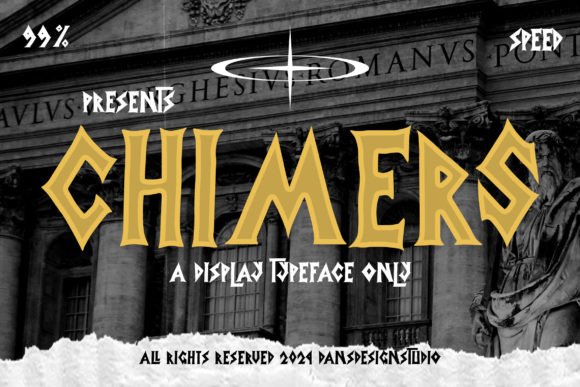
Introducing Chimers Font: The Perfect Blend of Old-School Blackletter and Modern Graffiti
In the world of typography, fonts play a crucial role in conveying messages, expressing emotions, and creating visual identities. With the ever-evolving design landscape, font styles continue to emerge, and one such font that has gained significant attention is Chimers Font. This cool, eye-catching display font seamlessly blends old-school blackletter style with modern graffiti vibes, making it a standout in the world of typography.
What is Chimers Font?
Chimers Font is a unique, Y2K-inspired display font that combines the elegance of traditional blackletter style with the edginess of modern graffiti. Its distinctive design makes it perfect for creating bold, stylish statements in various design projects, from posters and flyers to social media graphics and branding materials.
Key Design Features of Chimers Font
So, what makes Chimers Font so special? Here are some of its key design features:
- Old-school blackletter style: Chimers Font draws inspiration from traditional blackletter typography, characterized by dramatic flourishes, intricate details, and a sense of luxury.
- Modern graffiti vibes: The font also incorporates modern graffiti elements, such as bold lines, vibrant colors, and a dash of edginess.
- Y2K-inspired design: The font’s design is reminiscent of the Y2K era, with a nostalgic feel that’s perfect for designers looking to create retro-style graphics.
- Unique letterforms: Each letterform in Chimers Font is carefully crafted to create a distinctive, eye-catching look that’s sure to grab attention.
Uses and Applications of Chimers Font
Chimers Font is a versatile display font that can be used in a wide range of design projects, including:
- Posters and flyers: Create bold, attention-grabbing posters and flyers for events, promotions, or product launches.
- Social media graphics: Use Chimers Font to create eye-catching social media graphics, such as Facebook posts, Instagram stories, or Twitter headers.
- Branding and logos: Incorporate Chimers Font into your brand identity, such as logos, business cards, or letterheads.
- Advertising and marketing materials: Use Chimers Font to create bold, stylish advertisements, brochures, or catalogs.
Tips and Tricks for Using Chimers Font
To get the most out of Chimers Font, here are some tips and tricks to keep in mind:
- Use it sparingly: Due to its bold, eye-catching design, Chimers Font works best when used sparingly. Use it for headings, titles, or key messages.
- Experiment with colors: Chimers Font looks great in bold, bright colors. Experiment with different color combinations to create a unique look.
- Pair it with neutral fonts: Pair Chimers Font with neutral fonts, such as sans-serif or serif fonts, to create visual contrast and hierarchy.
- Adjust font sizes: Experiment with different font sizes to create visual interest and emphasis.
Font Pairing Suggestions for Chimers Font
To create a harmonious design, it’s essential to pair Chimers Font with complementary fonts. Here are some font pairing suggestions:
- Open Sans: A clean, neutral sans-serif font that provides a nice contrast to Chimers Font.
- Lato: A modern sans-serif font with a friendly, approachable feel that pairs well with Chimers Font.
- Merriweather: A classic serif font that adds a touch of elegance and sophistication to Chimers Font.
Chimers Font is a unique, eye-catching display font that blends old-school blackletter style with modern graffiti vibes. Its Y2K-inspired design makes it perfect for creating bold, stylish statements in various design projects. With its versatility, Chimers Font is an excellent addition to any designer’s font library.